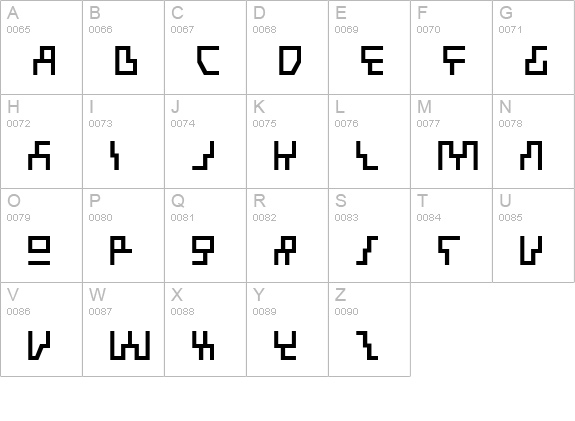
Beam Rider font is a modern and stylish typeface that exudes a futuristic vibe. Its sleek lines and geometric shapes make it perfect for a wide range of design projects, from tech-related branding to sci-fi posters. The font's clean and bold appearance ensures readability while adding a touch of sophistication to any text. The best part about Beam Rider font is that it is available for free download at FontsMarket.com. This means you can easily access this eye-catching typeface for your personal and commercial projects without any cost. Whether you're looking to elevate your website, create eye-catching social media graphics, or design striking print materials, Beam Rider font is a versatile choice that will make your text stand out. Download it today and add a touch of modern elegance to your designs.